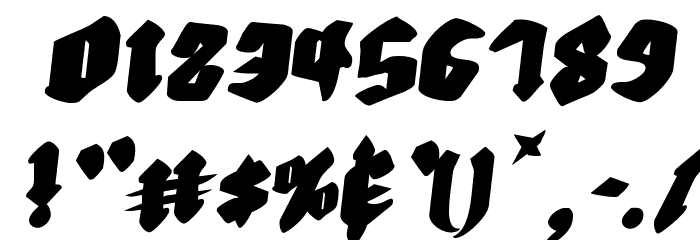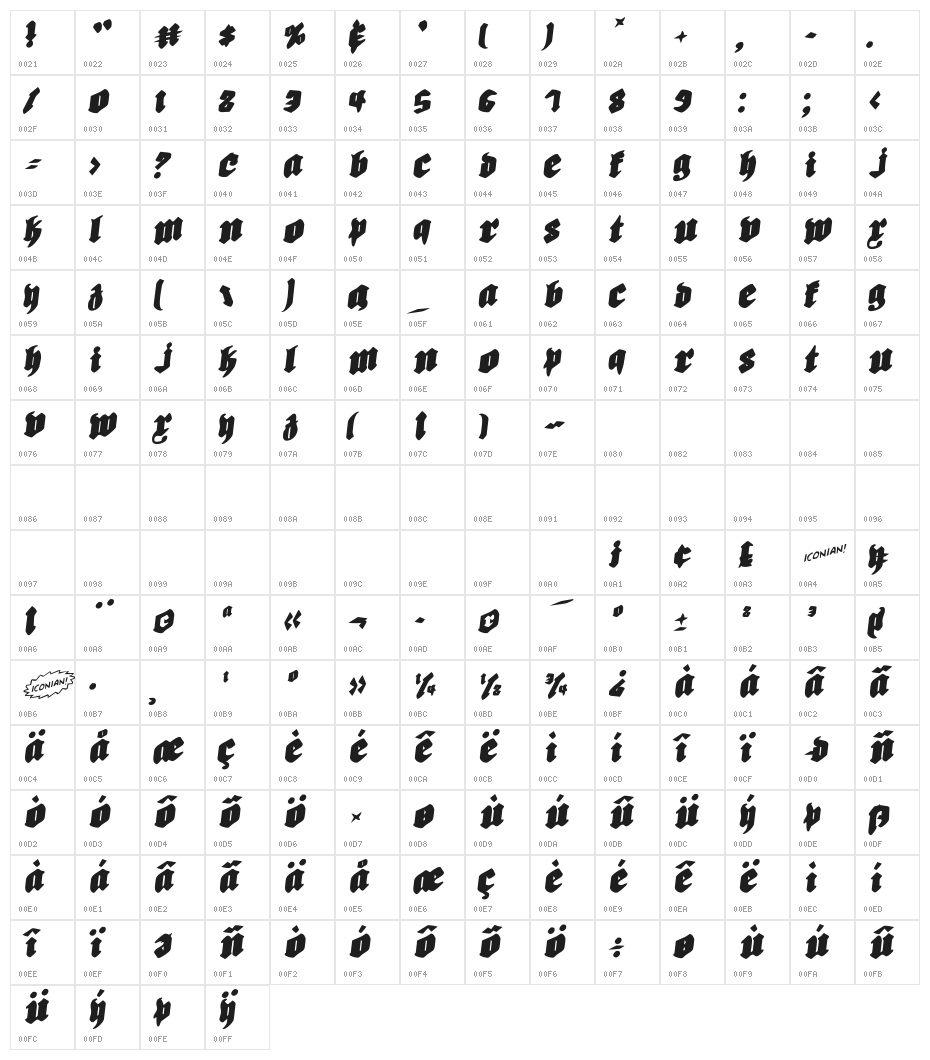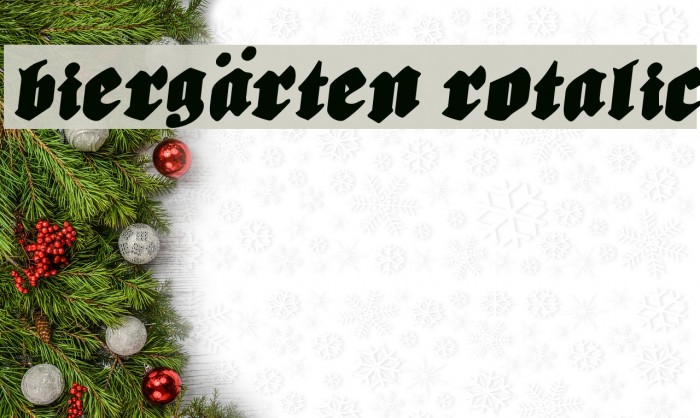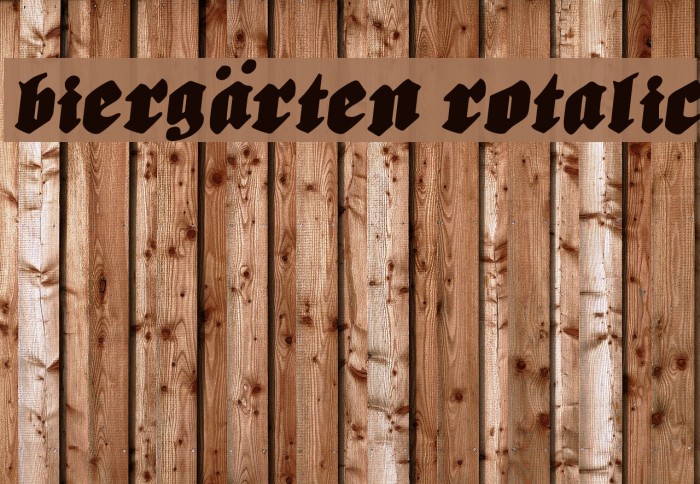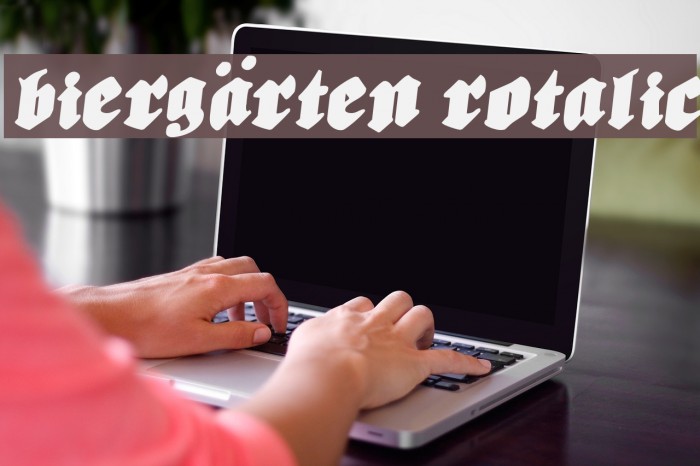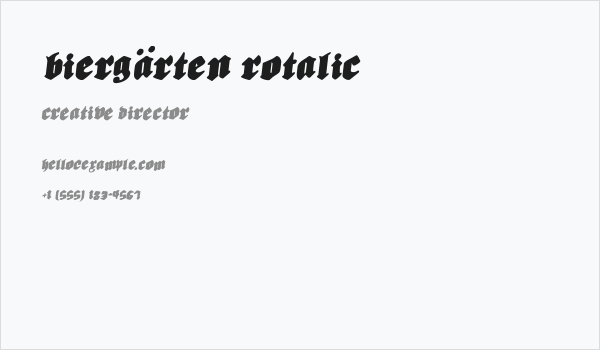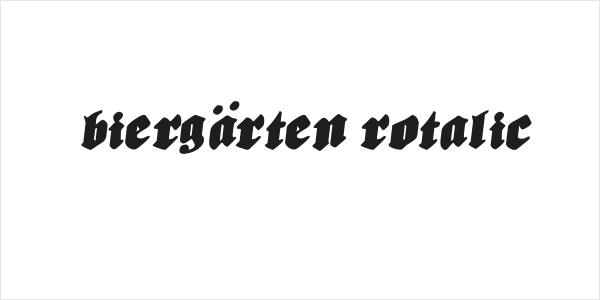
Biergärten Rotalic Font
Biergärten Rotalic Description
This font features a bold and dramatic style, reminiscent of traditional Blackletter typefaces. The characters are sharply defined with thick strokes and pointed edges, giving it a strong and authoritative presence. The uppercase and lowercase letters maintain a consistent style, with intricate details that add to its ornate appearance. The numbers and special characters are equally bold, ensuring a cohesive look throughout. This font is ideal for projects that require a historical or gothic touch, offering a sense of tradition and elegance.
| Use Case | Headlines, Logos, Decorative text |
| Proposed Projects | Ideal for historical documents, gothic-themed designs, posters, and branding that requires a traditional or medieval aesthetic. |